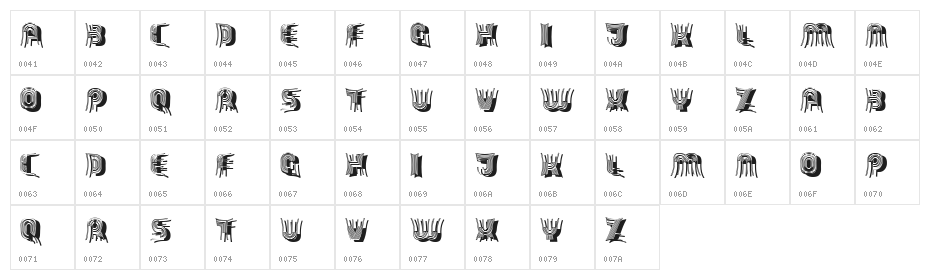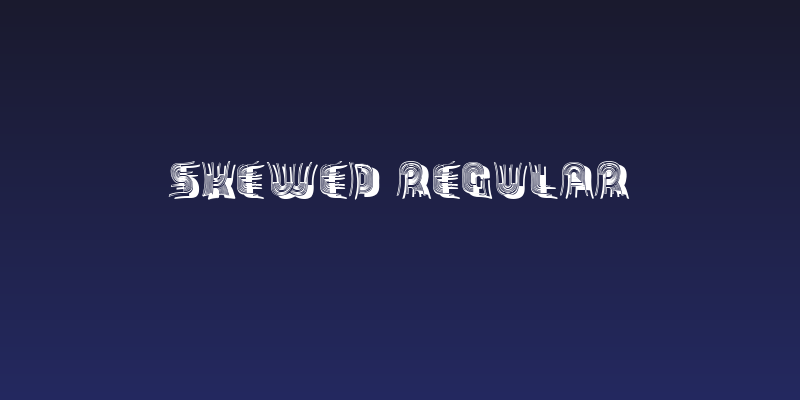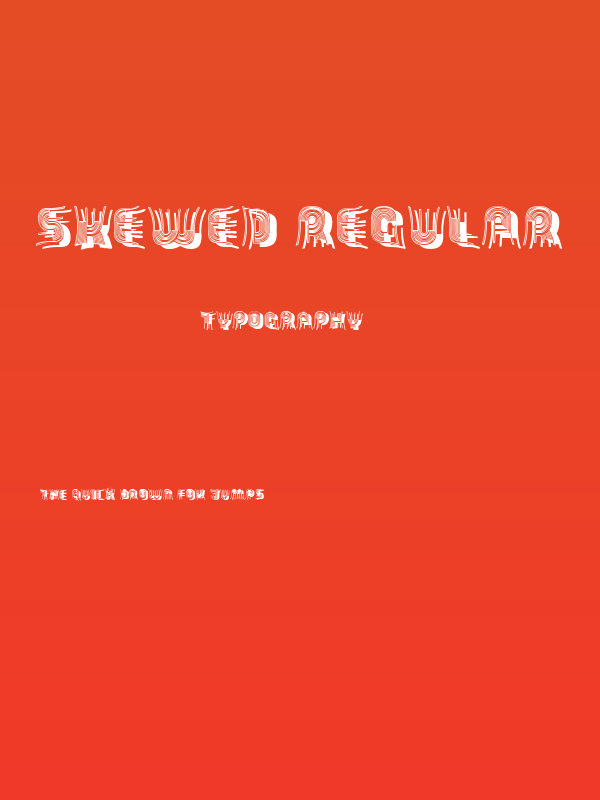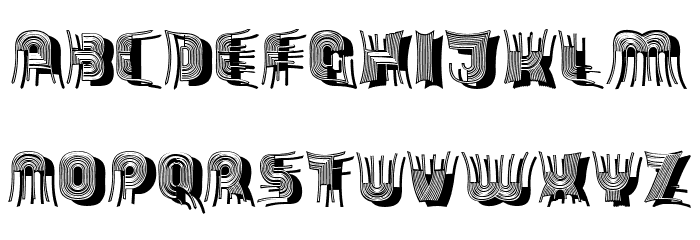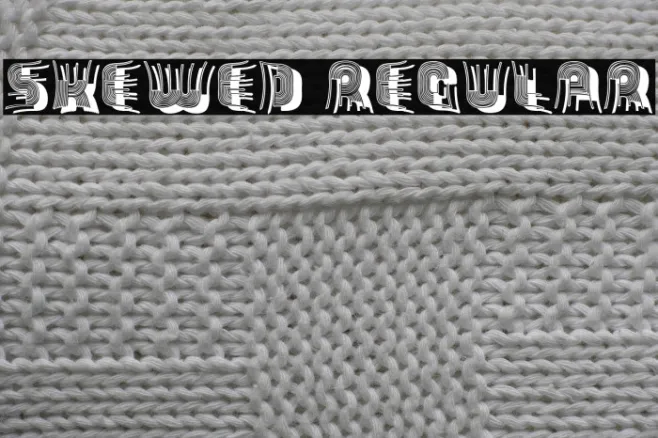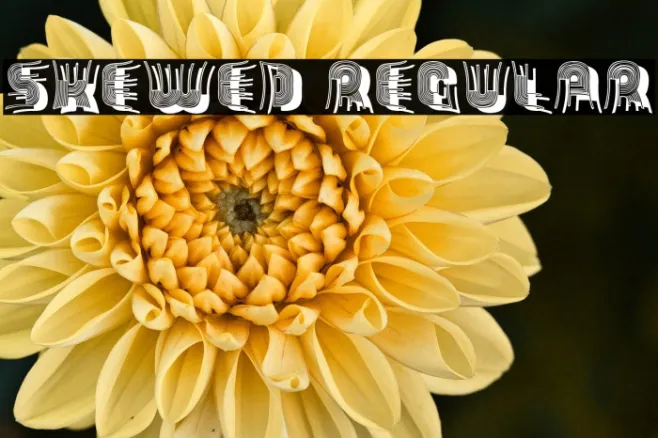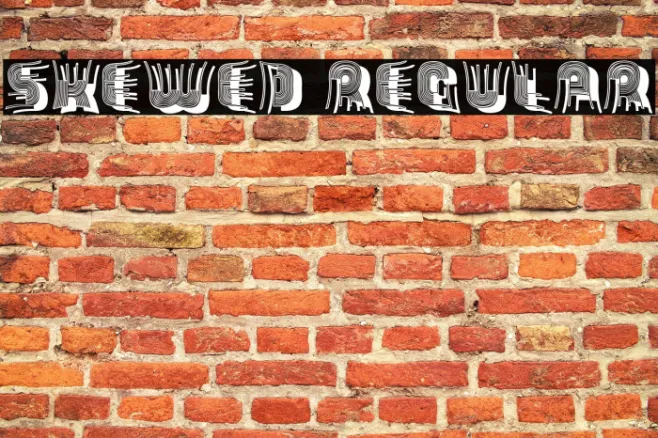
Skewed Regular Font
Skewed Regular Description
This font features a bold and dynamic design with a unique skewed effect that gives each character a sense of movement and energy. The letters are heavily stylized with thick strokes and sharp angles, creating a striking visual impact. The design incorporates a layered look, adding depth and complexity to the characters. This font is ideal for projects that require a strong and eye-catching display, as it commands attention and conveys a sense of modernity and creativity.